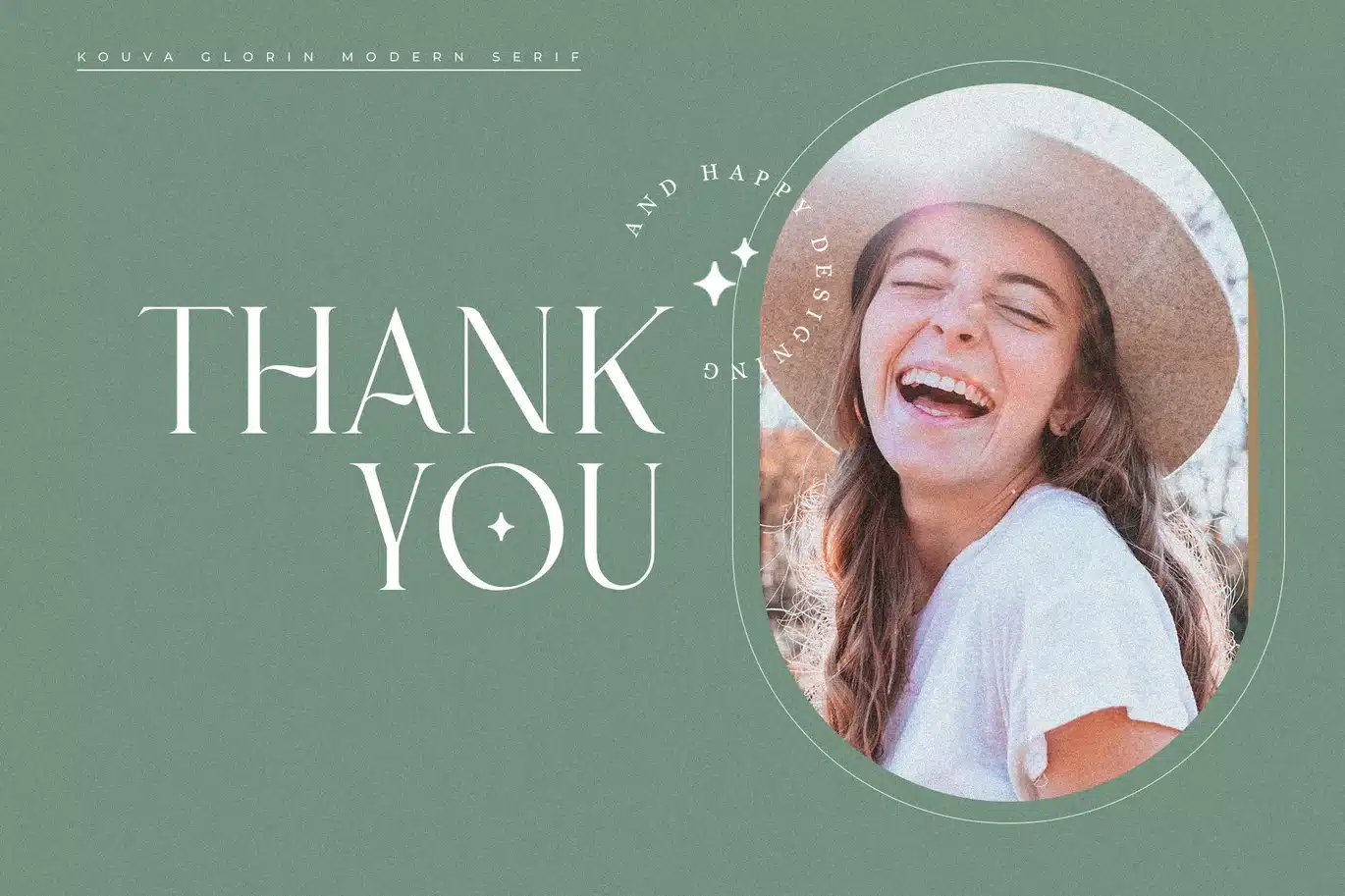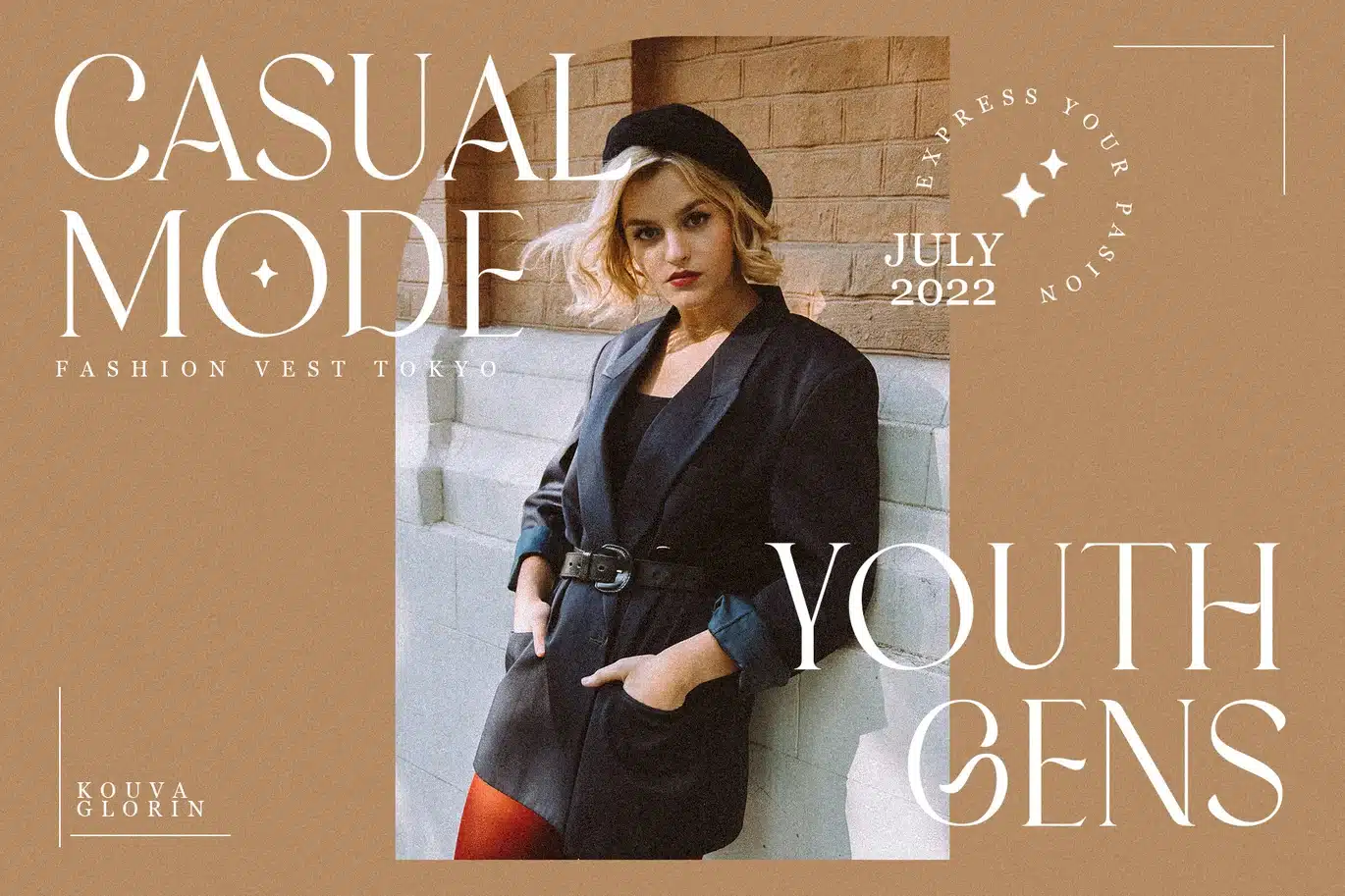
Kouva Glorin Font
Kouva Glorin is a modern luxury serif, This font was particularly crafted for those who need a beautiful and refreshing look to their designs.
This font is perfect for any of your design projects such as logo design, branding design, poster, fashion magazine, business cards, stationery, and more.